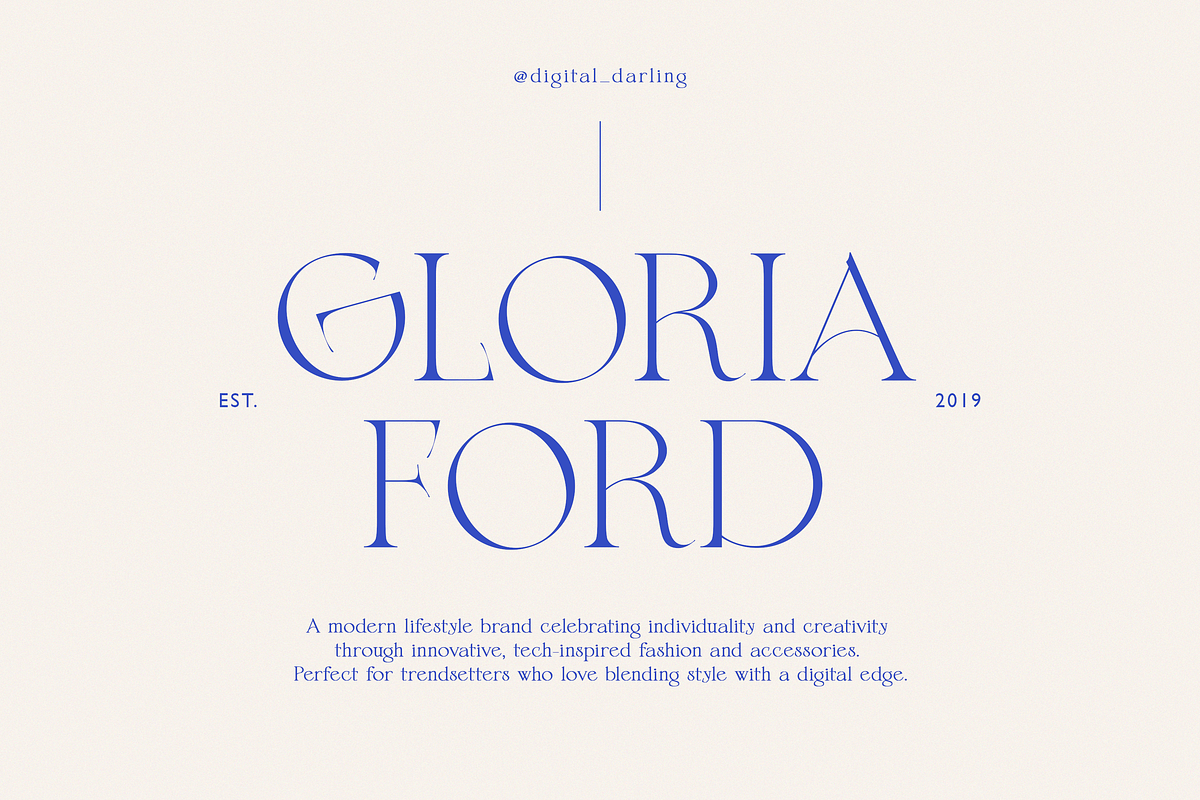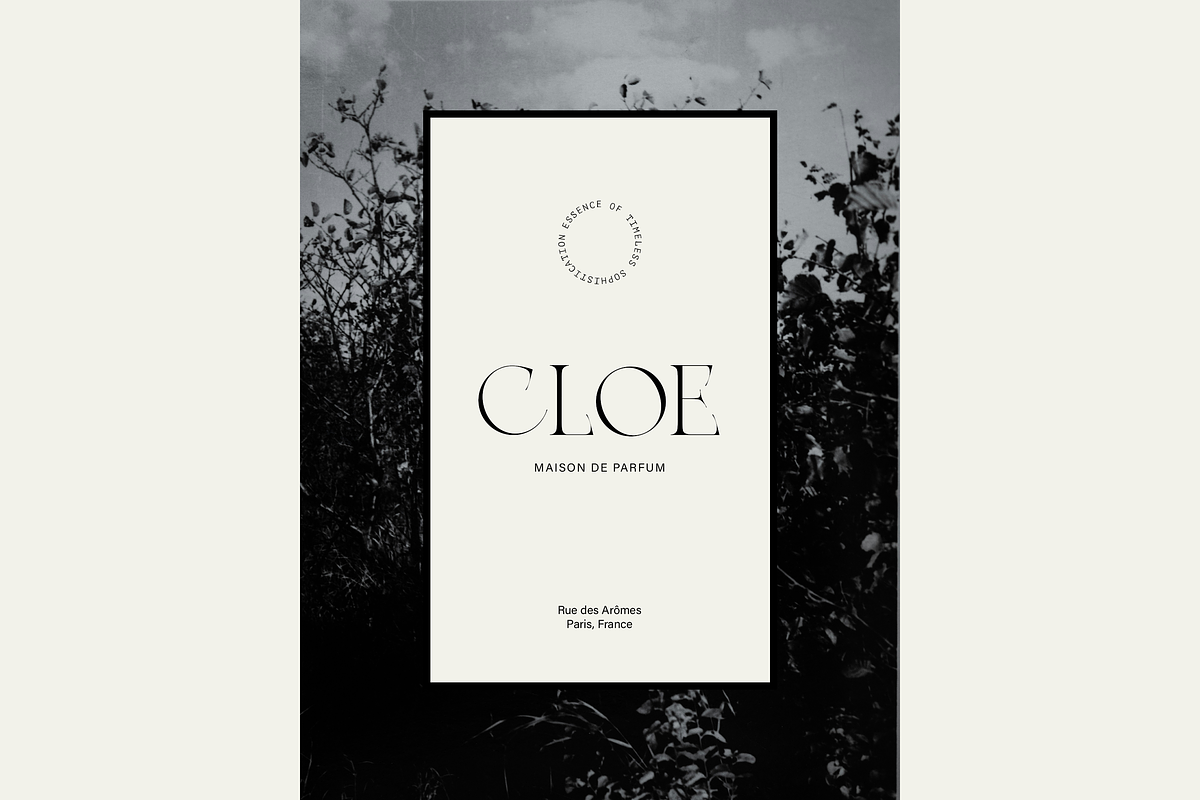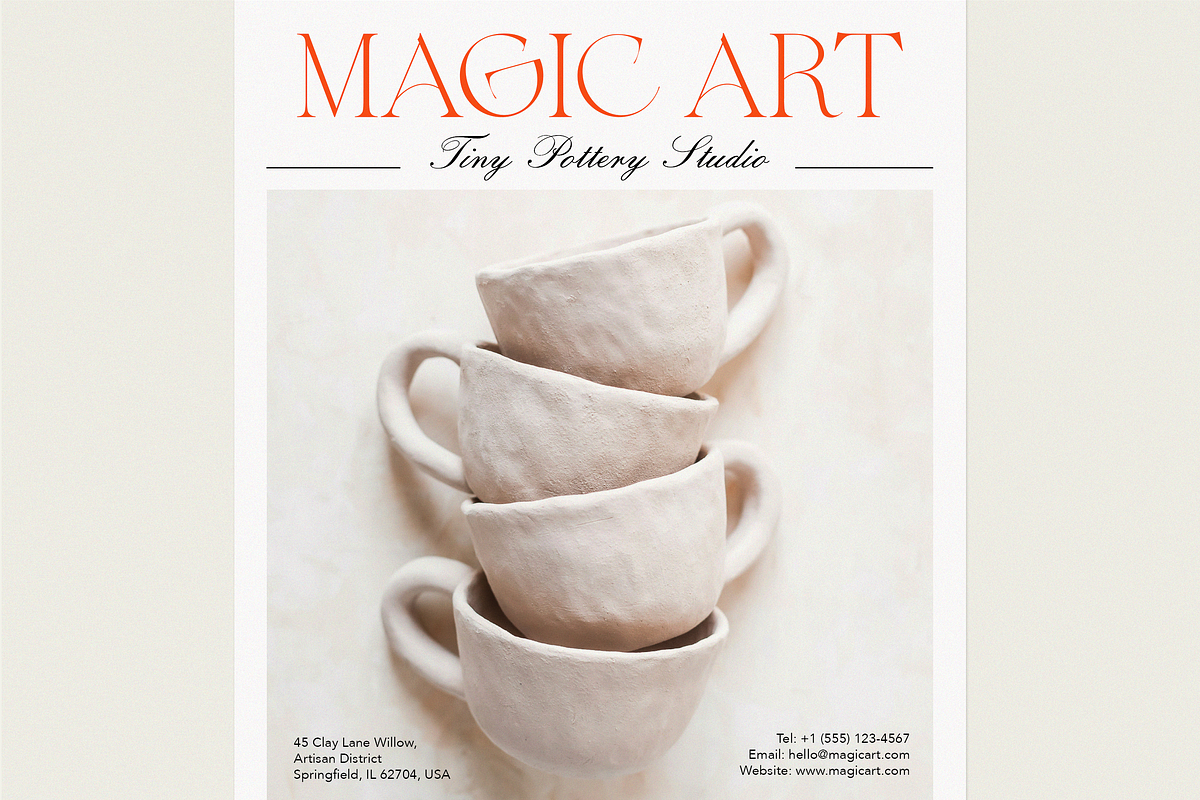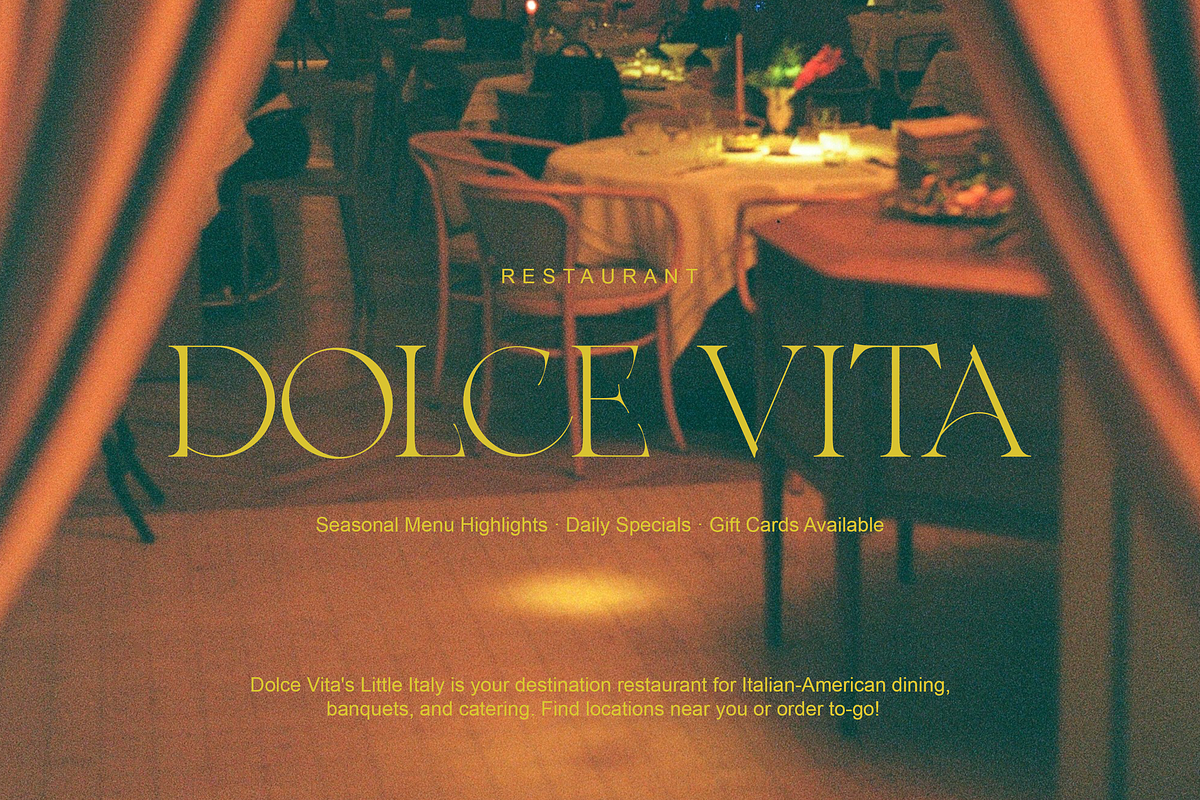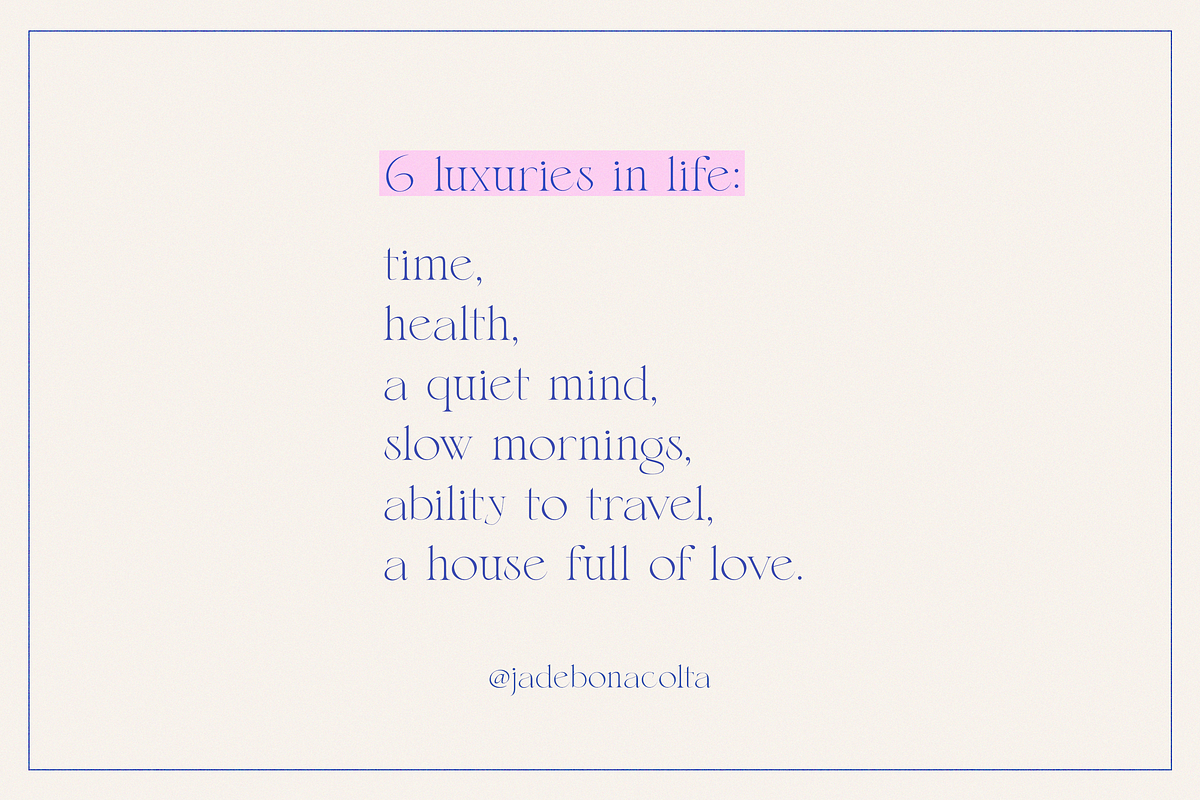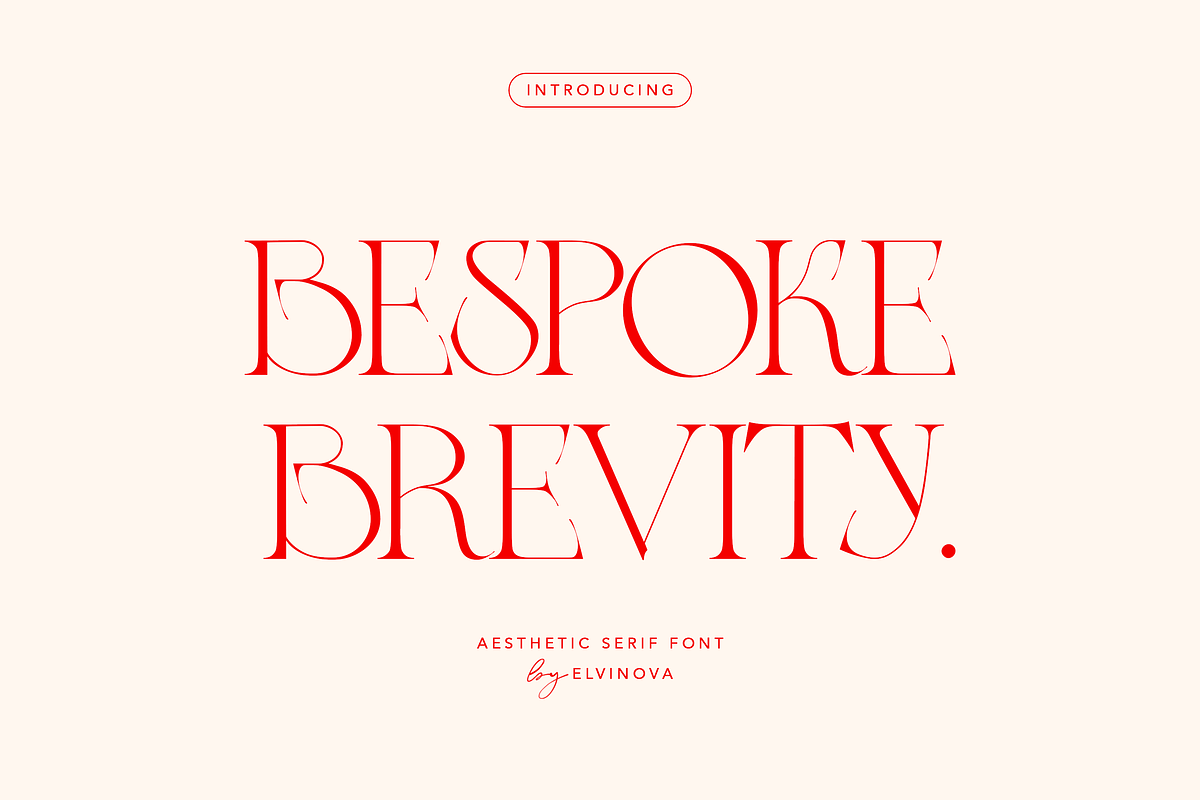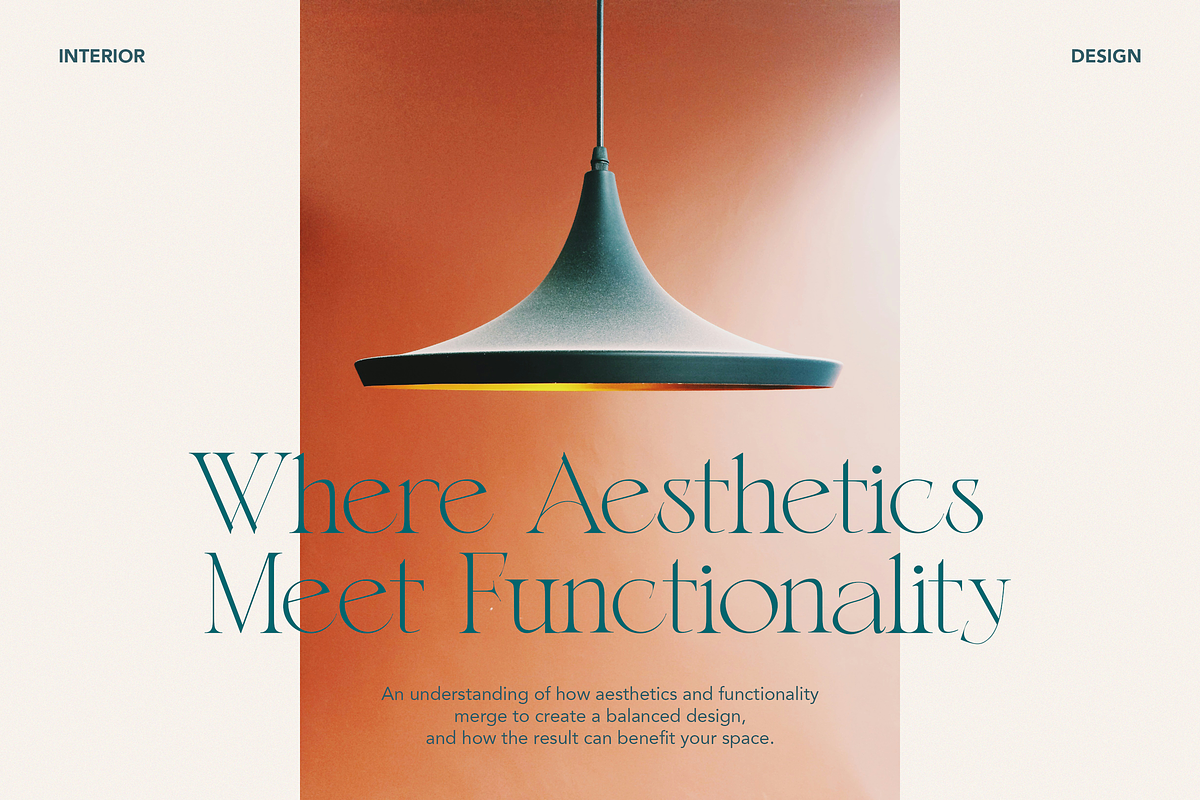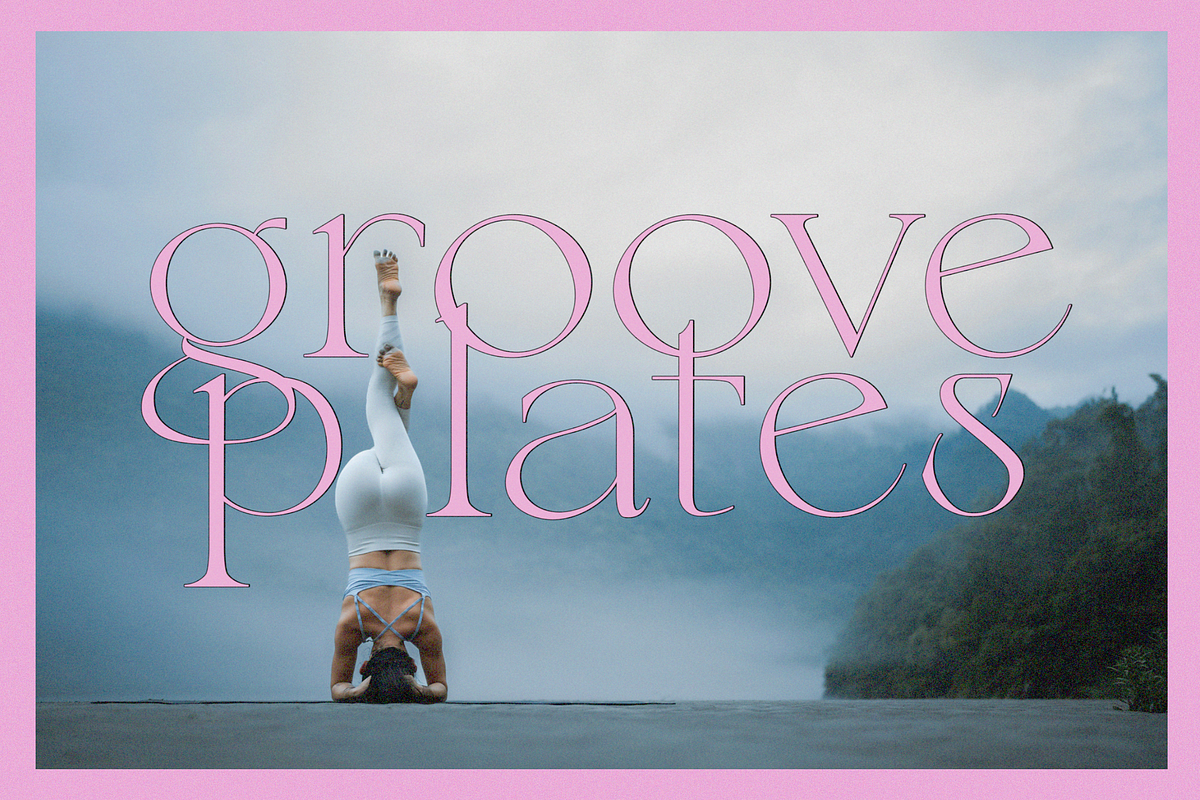
Bespoke Brevity | Modern Serif
Bespoke Brevity is a modern serif font with a charming, chic style. It’s perfect for branding and classic designs, bringing together a fresh, authentic, and elegant feel that’s both professional and unique.